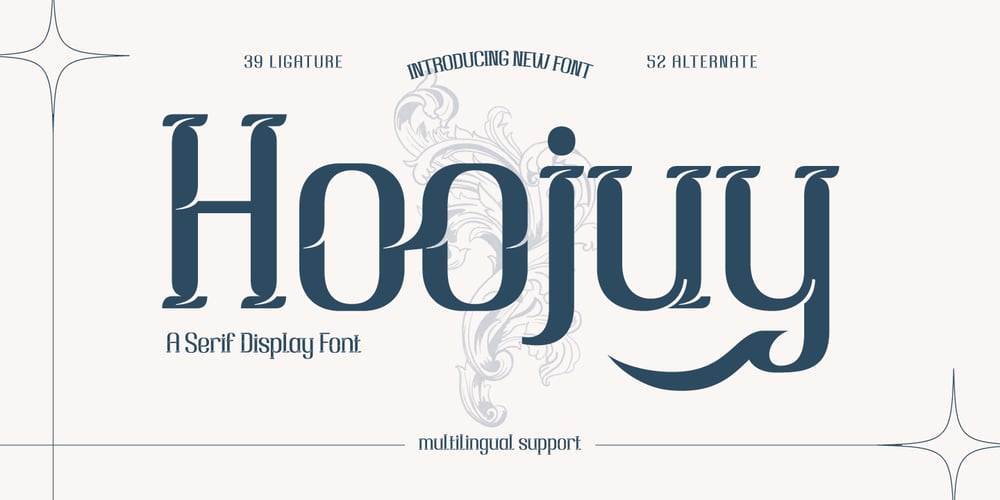
Hoojuy Font Family was designed by Rozikan and published by Twinletter. Hoojuy contains 1 styles and family package options. Hoojuy is a classic serif typeface ideal for projects involving classic or retro modernism. This font’s stylish and refined attributes will add a distinctive touch to your designs.Hoojuy’s distinctive characteristics, like ligatures and alternatives, give it versatility and generate unexpected changes in the appearance of your text. You may quickly change the look and feel of your creative work.Furthermore, Hoojuy supports multilingualism, therefore it may be used for a variety of languages worldwide. This allows you to reach a global audience and increase the visual impact of your designs.By using Hoojuy as the primary typeface for your project, you’ll add an appealing modern twist to your classic style. Use Hoojuy right away to add the elegance of typography to your outstanding design.What’s Included :- File font- All glyphs Iso Latin 1- Alternate, Ligature- Simple installations- We highly recommend using a program that supports OpenType features and Glyphs panels like many Adobe apps and Corel Draw so that you can see and access all Glyph variations.- PUA Encoded Characters – Fully accessible without additional design software.- Fonts include Multilingual support